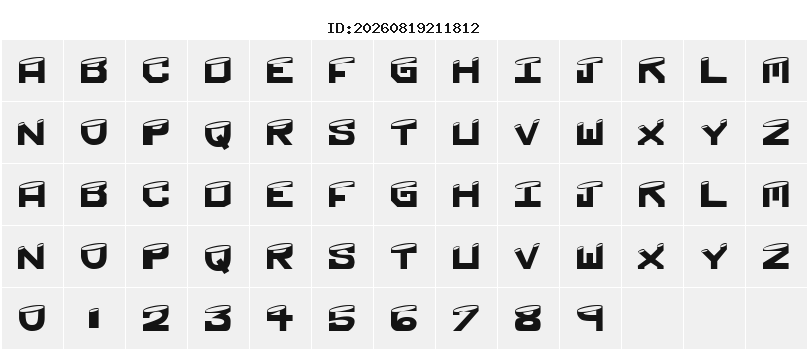
• Font Name: Shaved
• Full Font Name: Shaved
About Shaved.ttf
Shaved.ttf is a modern, elegant sans-serif font designed for ultimate readability and visual harmony. Perfect for branding, headlines, web design, and print materials.